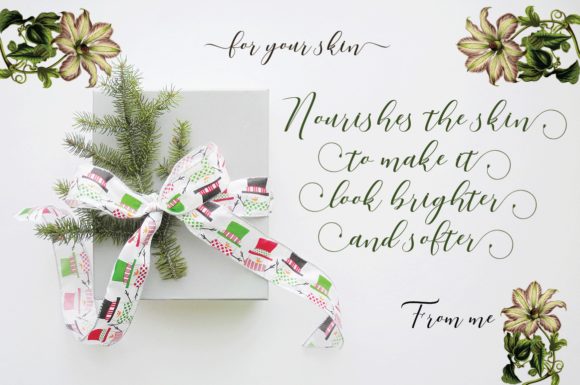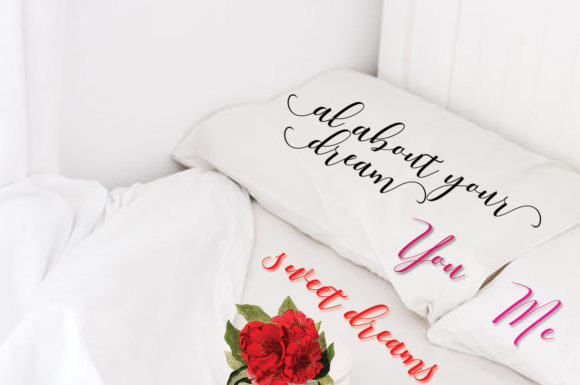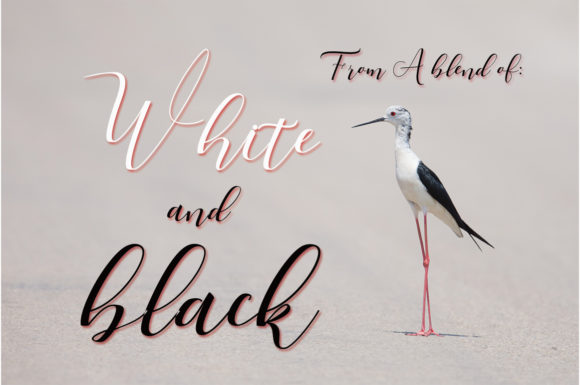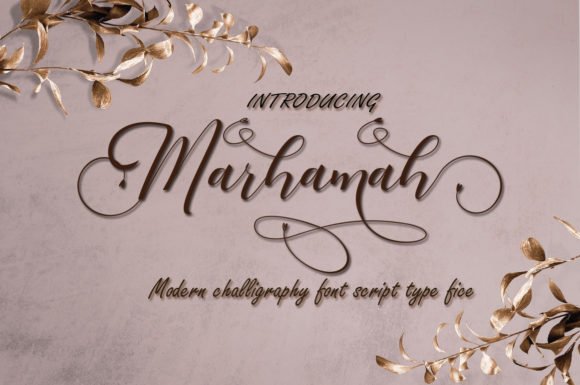
Introduction to Marhamah Font
Marhamah is a beautiful handwritten font with an incredibly friendly feel.
It features gorgeous swashes and ligatures that make this script incredibly versatile Whether you’re looking for fonts for Instagram or calligraphy scripts for DIY projects, Marhamah will turn any creative idea into a true piece of art.
Key Features of Marhamah Font
Why Choose Marhamah Font?
Marhamah Font offers exceptional quality and versatility, making it a valuable addition to your design toolkit. Whether you’re creating for personal projects or commercial use, Marhamah Font delivers professional results.